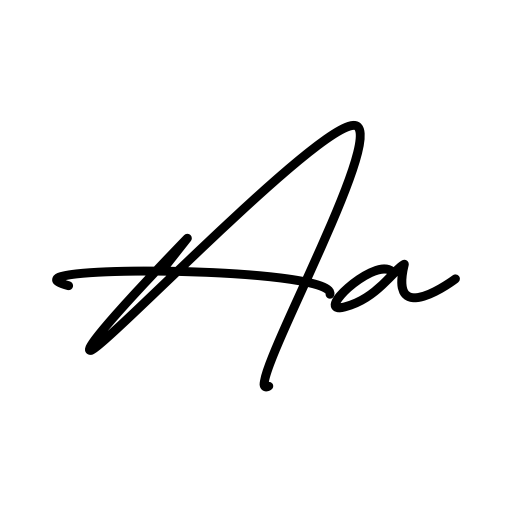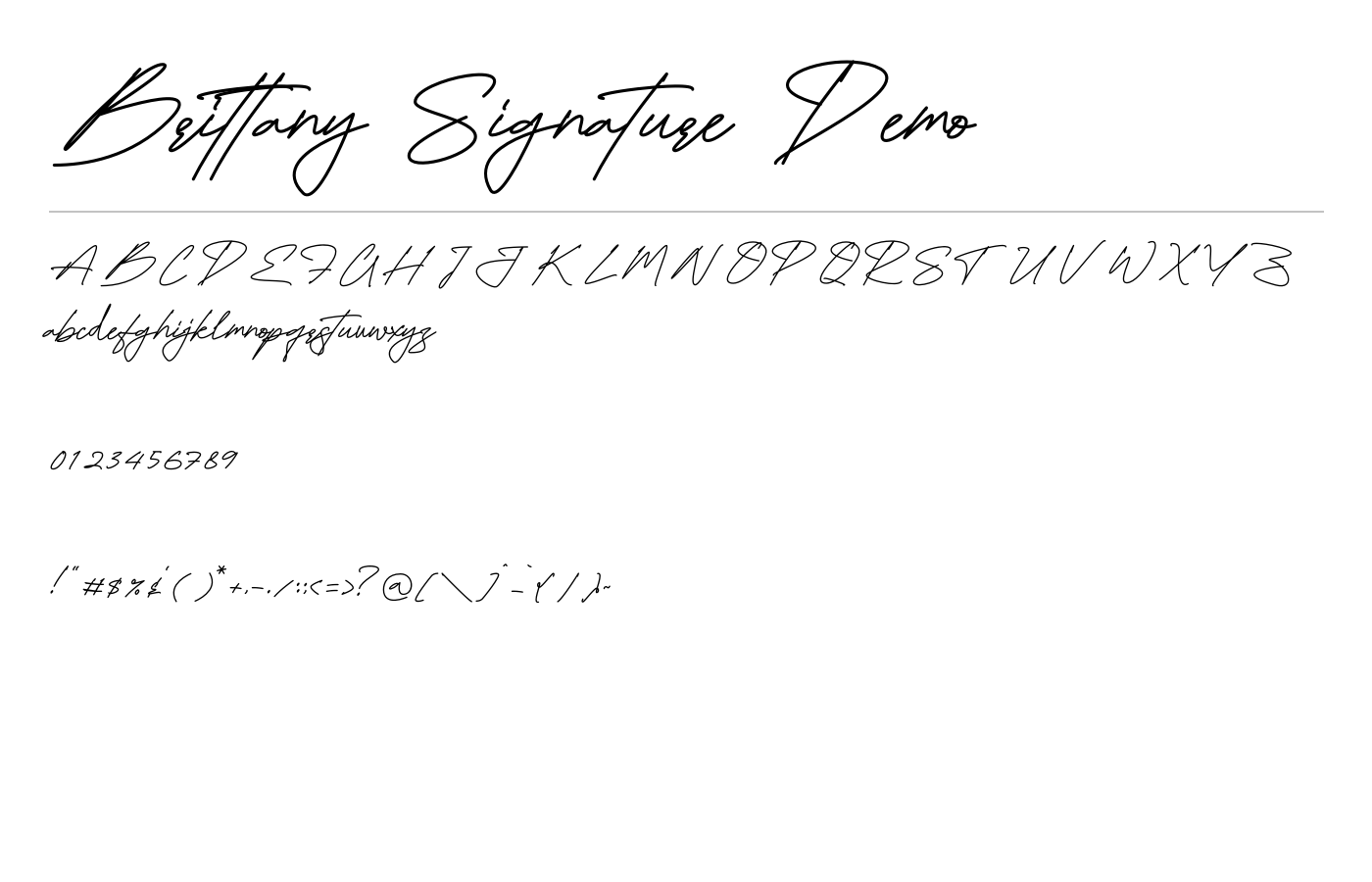
Brittany Signature Demo is an elegant, thin script font that mimics natural, flowing handwriting with a modern and personal touch. Its delicate strokes and slightly angled letterforms create a refined, airy feel perfect for branding, invitations, and stylish headlines where a sophisticated yet approachable personality is desired. This font works especially well in fashion, luxury, and creative projects that seek to convey individuality and grace.
Brittany Signature Demo Font
About Brittany Signature Demo Font